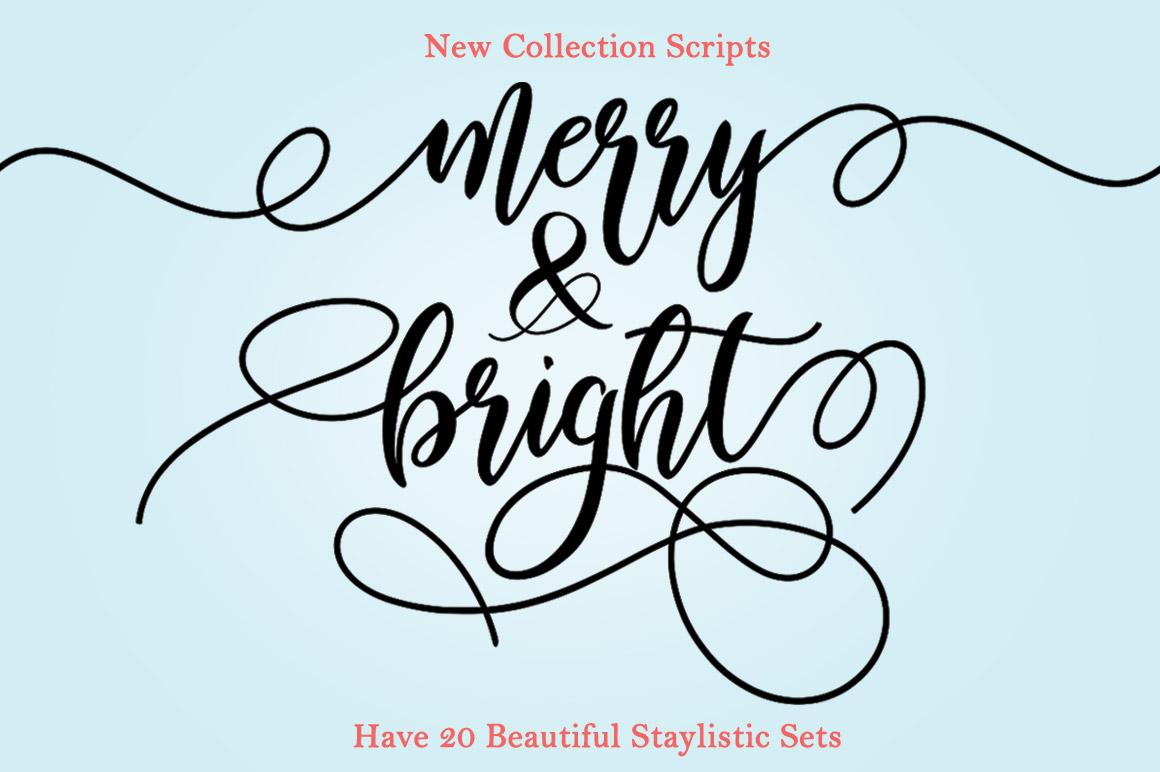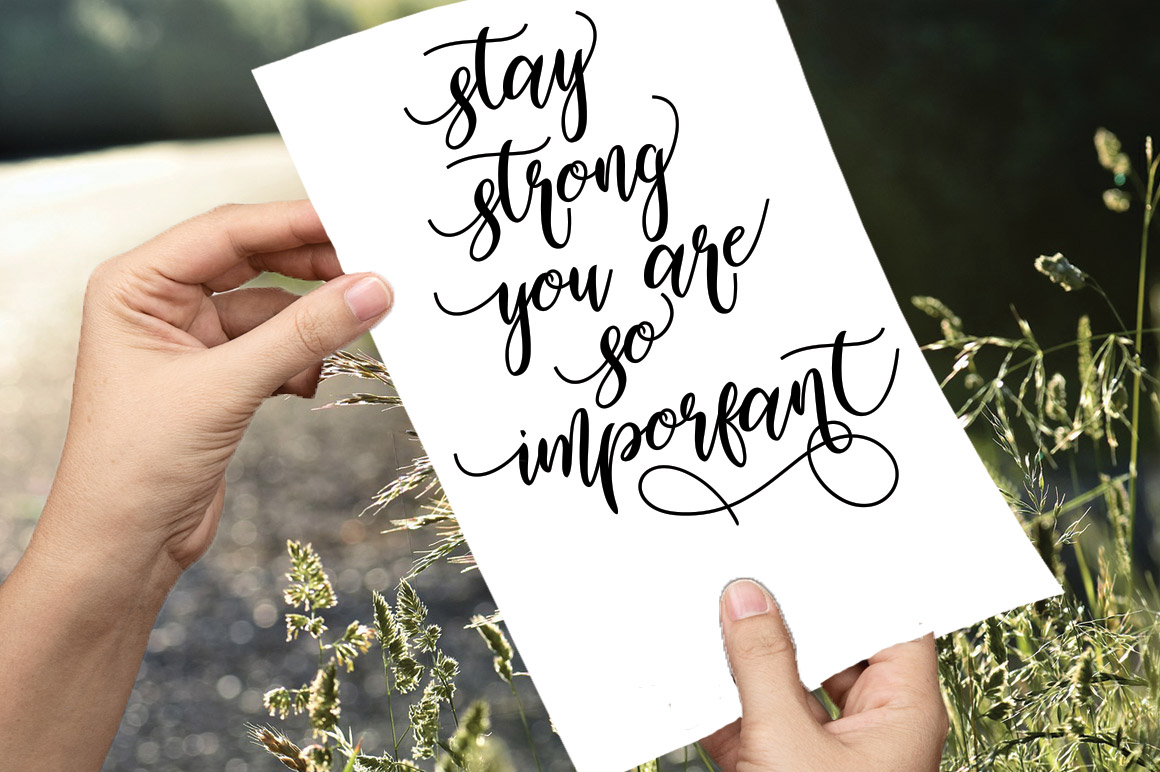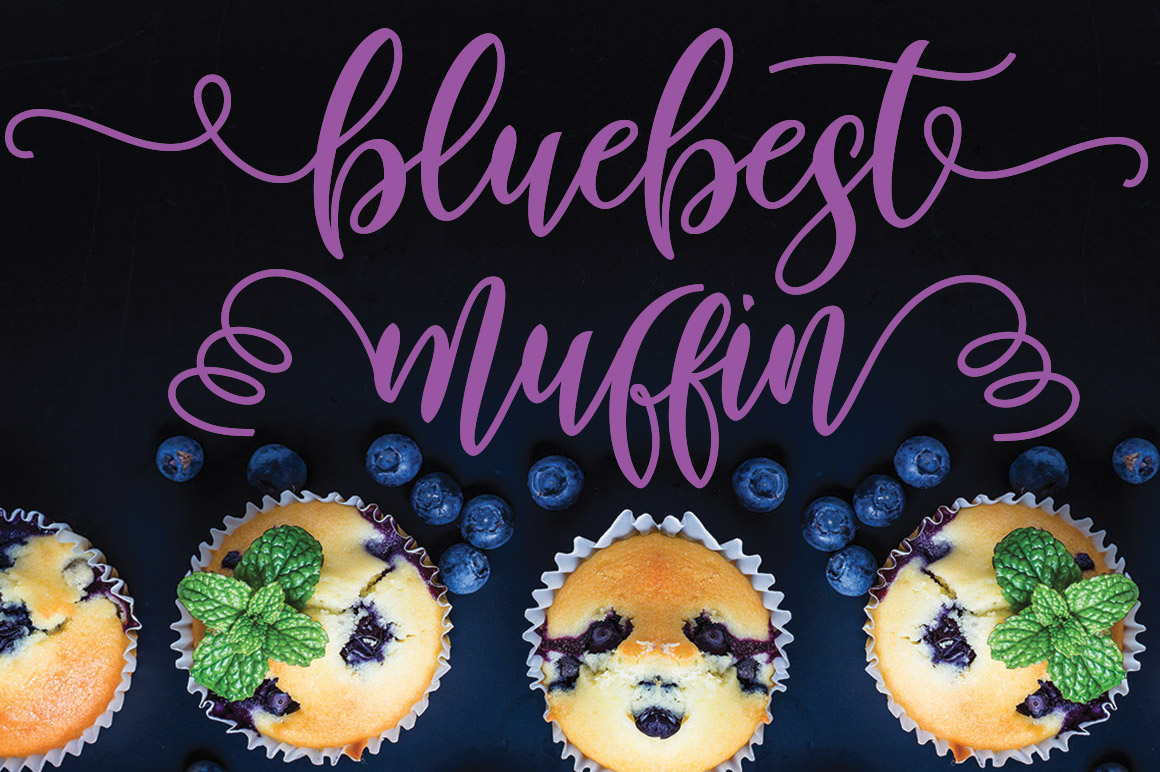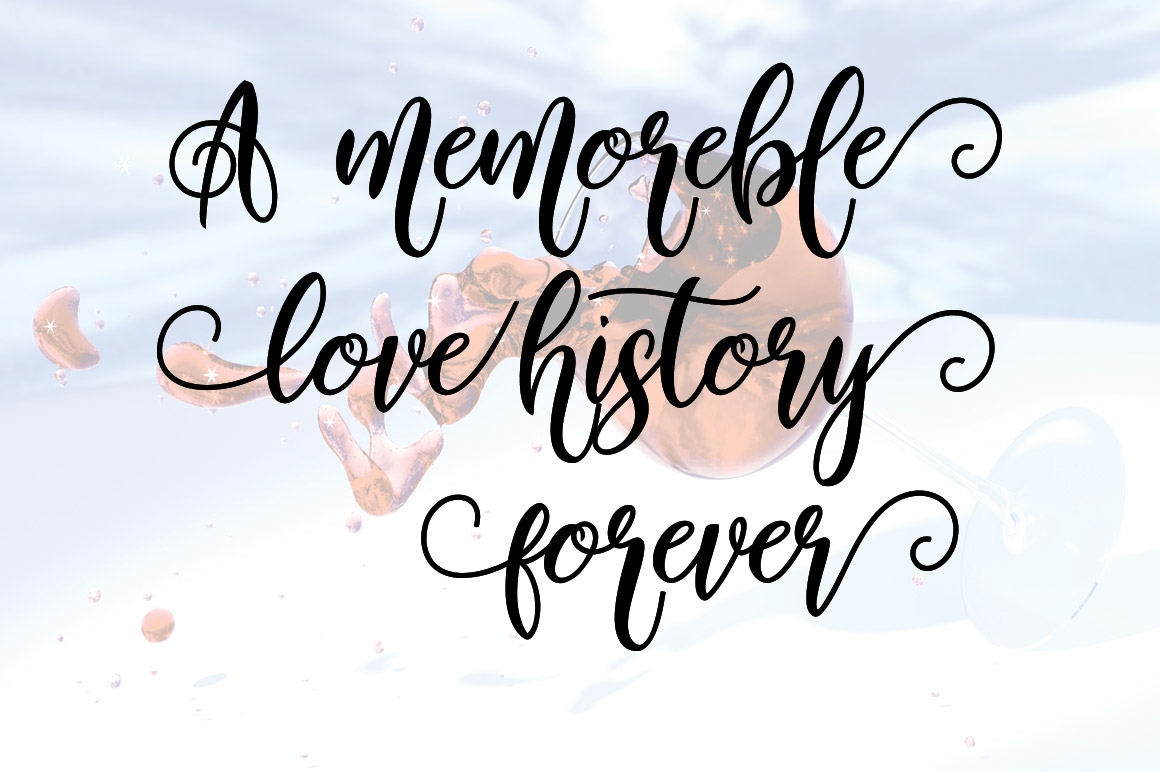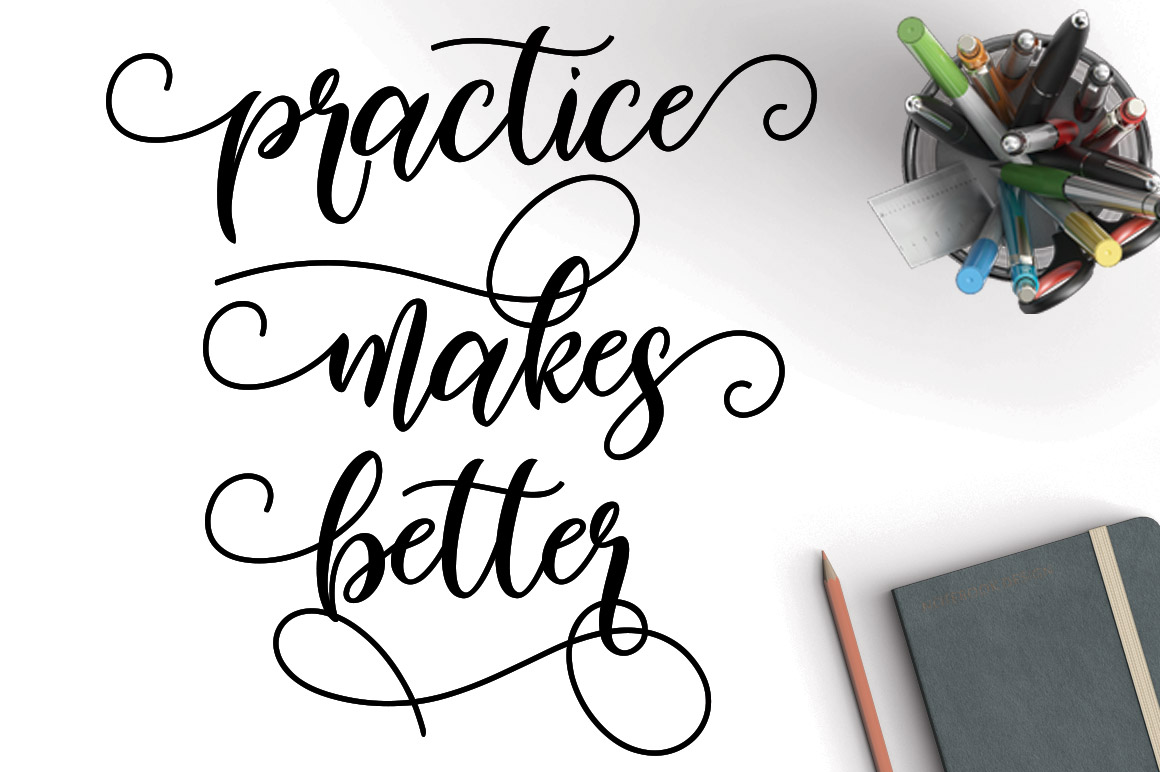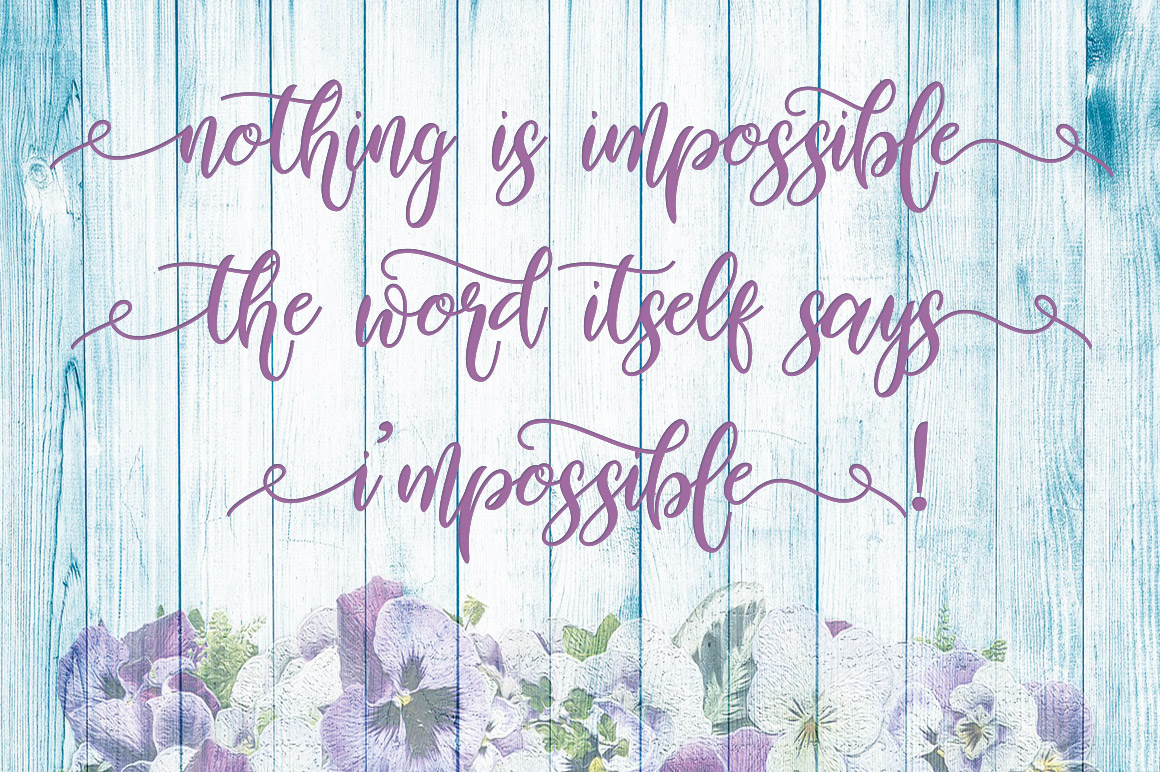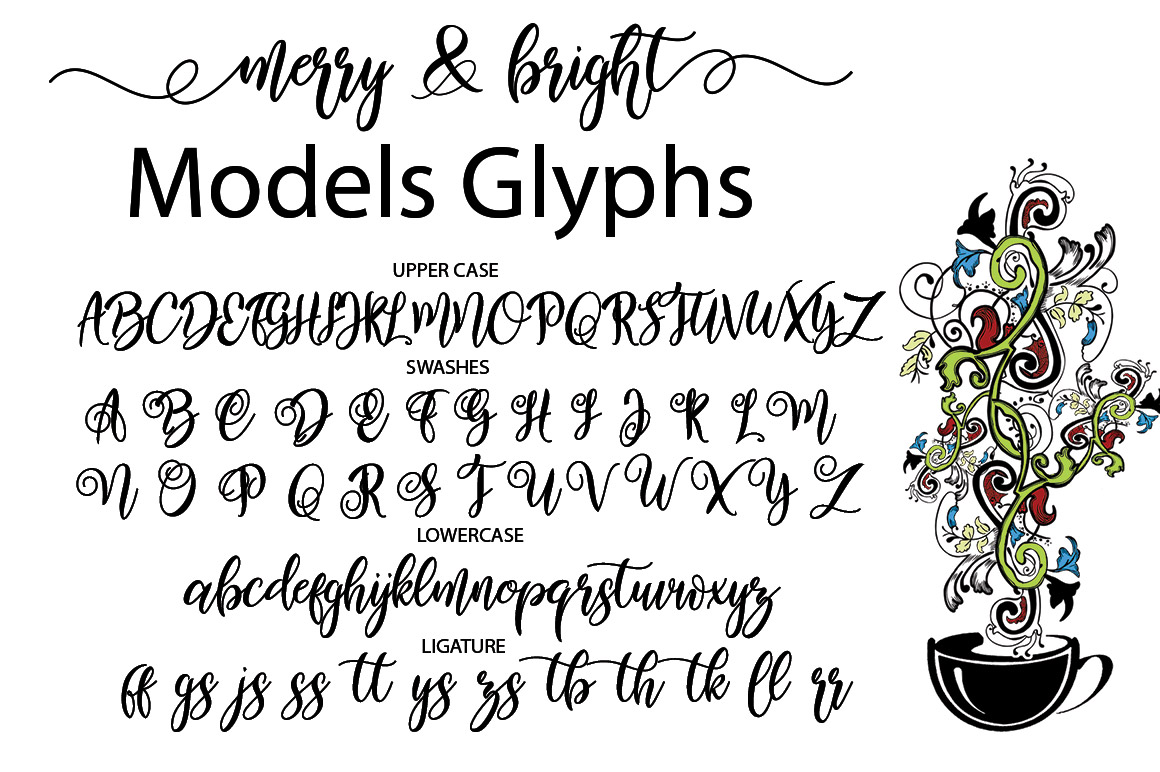
Merry & Bright Font
About Merry & Bright Font
Merry & Bright is a stunning handpainted script font. The font has a flowing feeling which makes it perfect for adding a personal touch to cards, invites and other designs.
The font features over 670 unique characters that allow you to create endless combinations & variations.